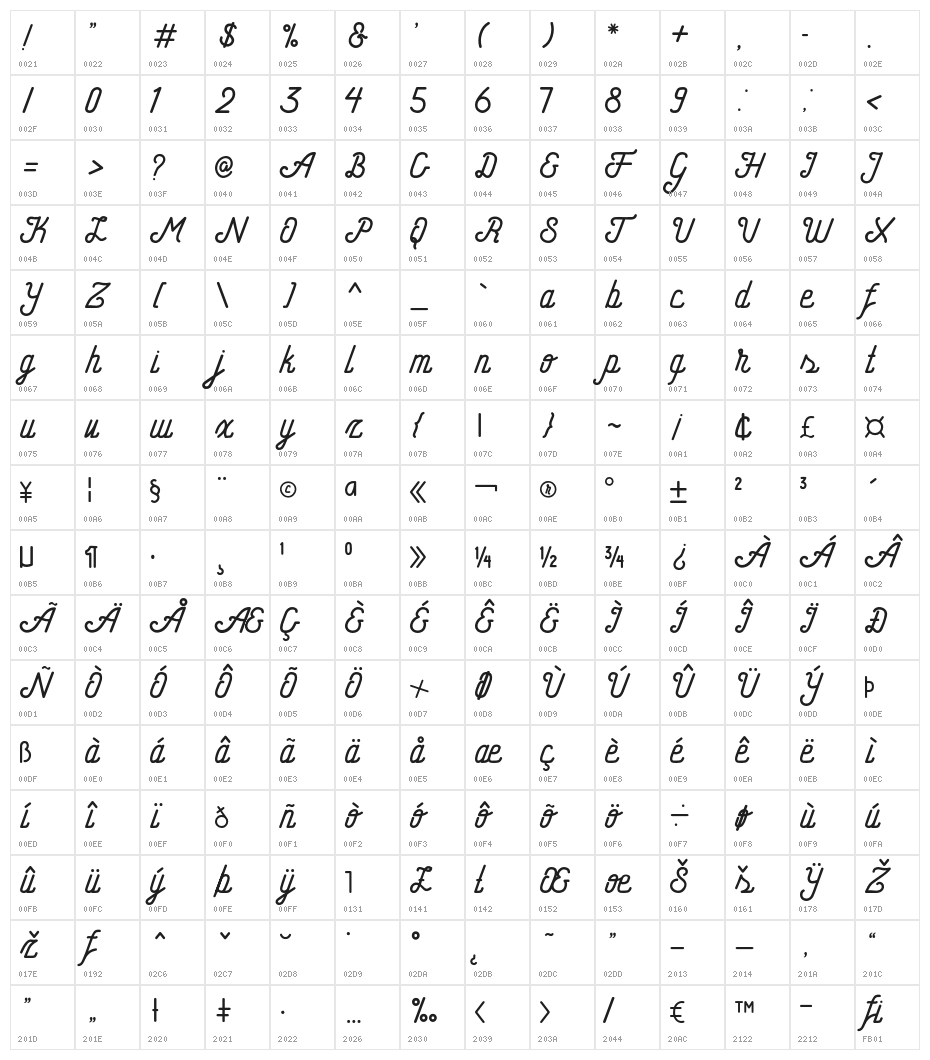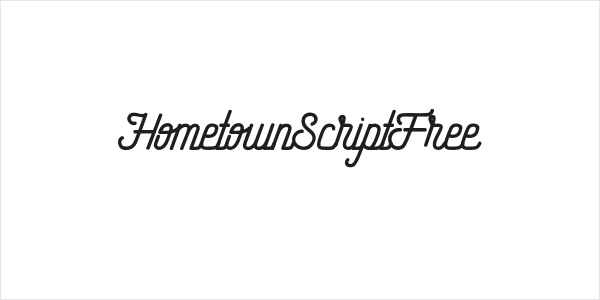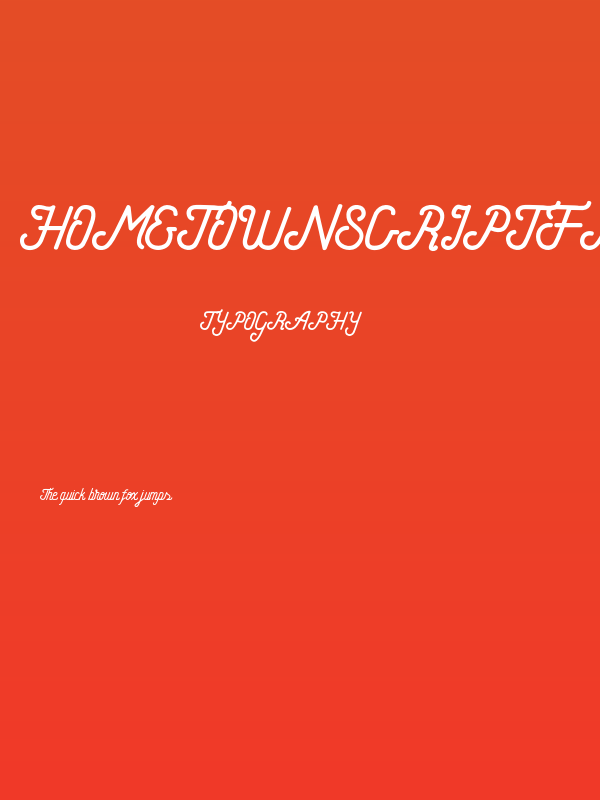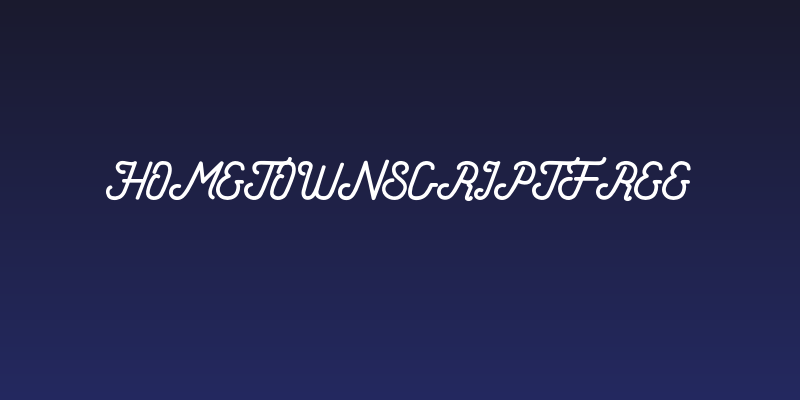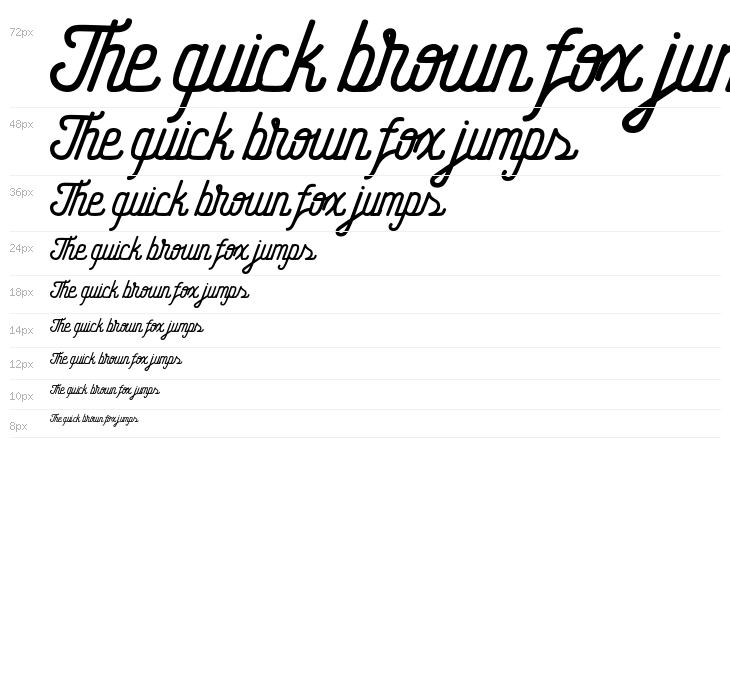
HometownScriptFree Font
HometownScriptFree Description
This font features a charming and fluid script style, characterized by its smooth, flowing lines and elegant curves. The uppercase letters are bold and slightly slanted, giving a sense of movement and grace. The lowercase letters maintain a consistent rhythm, with rounded forms and a slight slant that enhances readability. The numerals are well-proportioned, matching the style of the letters with a playful yet sophisticated appearance. Special characters are thoughtfully designed to complement the overall aesthetic, making this font versatile for various applications.
| Proposed Projects | Ideal for wedding invitations, greeting cards, branding projects, and elegant signage. |